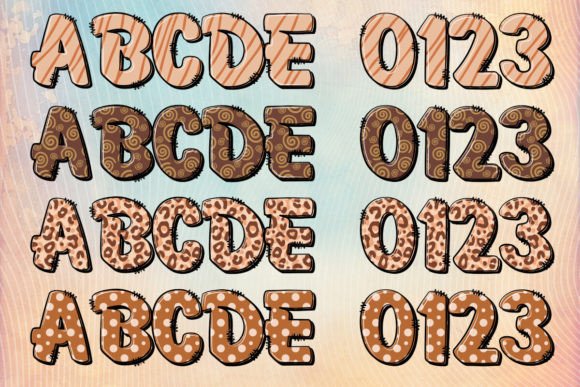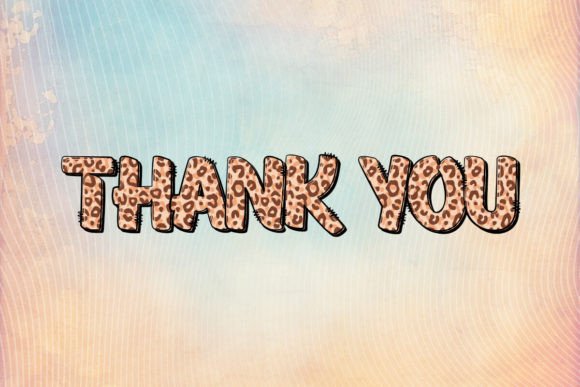
Introducing the Fall Season Font: Elevate Your Holiday Designs with a Touch of Autumn Magic
As the leaves change colors and the air grows crisp, the fall season brings a sense of coziness and festivity that’s hard to resist. For designers and crafters, this time of year offers a wealth of creative opportunities to capture the essence of holidays like Halloween, Thanksgiving, and Christmas. To help you make the most of this magical season, we’re excited to introduce the Fall Season Font – a versatile and eye-catching typeface that’s perfect for infusing your designs with the charm of autumn.
A Font that Balances Modernity with Tradition
The Fall Season Font is more than just a collection of letters – it’s a design solution that effortlessly blends modern sensibility with traditional charm. Its unique style is carefully crafted to help you create stunning designs that resonate with the spirit of the fall season. Whether you’re working on a Halloween-themed project, a Thanksgiving invitation, or a Christmas card, this font is the perfect choice to add a touch of autumn magic to your creations.
Seamless Design Transitions through the Autumn Season
One of the standout features of the Fall Season Font is its ability to help you transition smoothly through the autumn season and into the heartwarming Christmas festivities. With this font, you can create a cohesive design narrative that flows from one holiday to the next, making it perfect for designers and crafters who want to create a consistent visual identity across multiple projects.
Hallothannksmas: The Ultimate Holiday Font Experience
Imagine being able to capture the essence of Halloween, Thanksgiving, and Christmas in a single font – that’s exactly what the Fall Season Font offers. Dubbed “Hallothannksmas,” this font is designed to help you create designs that are both festive and fun, with a unique charm that’s sure to captivate your audience. Whether you’re designing for personal or commercial use, the Fall Season Font is the perfect choice to add a touch of holiday magic to your creations.
Tips and Tricks for Getting the Most out of the Fall Season Font
To help you get started with the Fall Season Font, here are a few tips and tricks to keep in mind:
- Experiment with different font sizes and colors to create visual interest and hierarchy in your designs.
- Pair the Fall Season Font with other design elements, such as graphics and textures, to add depth and dimension to your creations.
- Don’t be afraid to get creative and try out new and unusual design combinations – the Fall Season Font is designed to be versatile and adaptable.
The Fall Season Font is a powerful design tool that’s perfect for designers and crafters who want to capture the essence of the autumn season. With its unique blend of modernity and tradition, this font is sure to elevate your holiday designs and add a touch of magic to your creations. Whether you’re working on a Halloween-themed project, a Thanksgiving invitation, or a Christmas card, the Fall Season Font is the perfect choice to help you create stunning designs that resonate with the spirit of the season.